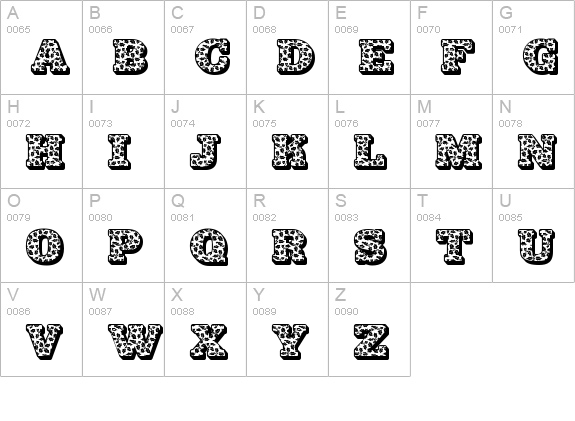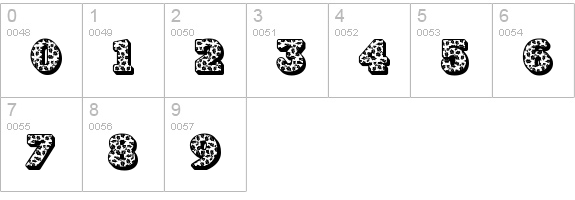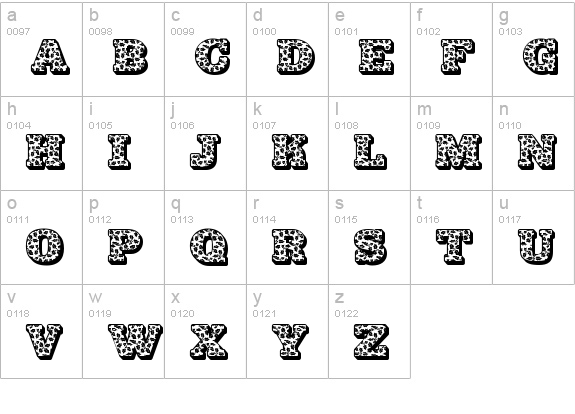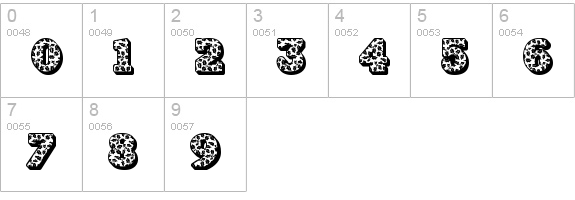
JFHollyDayz Font Details
Introducing JFHollyDayz font, a whimsical and playful typeface that channels the spirit of joy and celebration. With its charming and quirky letterforms, JFHollyDayz is the perfect choice for adding a touch of festive flair to your designs. This delightful font captures the essence of holiday cheer, making it an ideal choice for creating eye-catching invitations, greeting cards, party decorations, and more. Its unique and handcrafted design instantly brings a sense of warmth and excitement to any project. JFHollyDayz font is not only visually captivating but also incredibly versatile. Its bold and distinctive characters make it suitable for a wide range of design applications, from branding and packaging to social media graphics and website designs. With JFHollyDayz, you can effortlessly infuse your creations with a sense of fun and merriment. And the best part? JFHollyDayz font is absolutely free to download at FontsMarket.com! Yes, you read that right. You can now access this charming typeface without spending a penny, making it an excellent choice for both personal and commercial use. Embrace the holiday spirit and let JFHollyDayz font bring your designs to life with its cheerful and inviting aesthetic. So don't miss out on this fantastic opportunity to elevate your designs with JFHollyDayz font. Download it for free at FontsMarket.com and unlock a world of festive creativity. Let JFHollyDayz be your go-to font for all your holiday-inspired projects and spread joy with every letter.